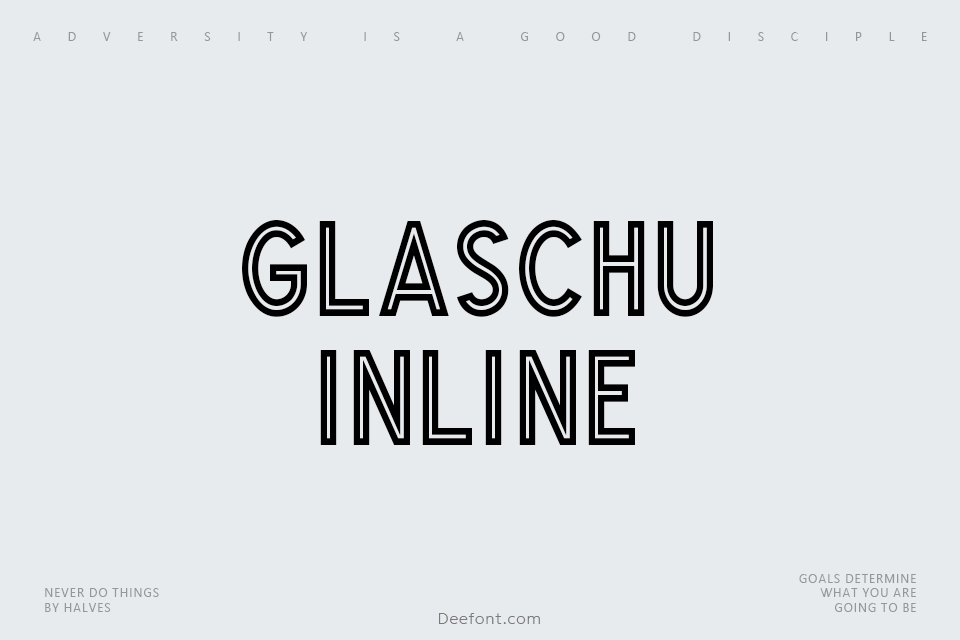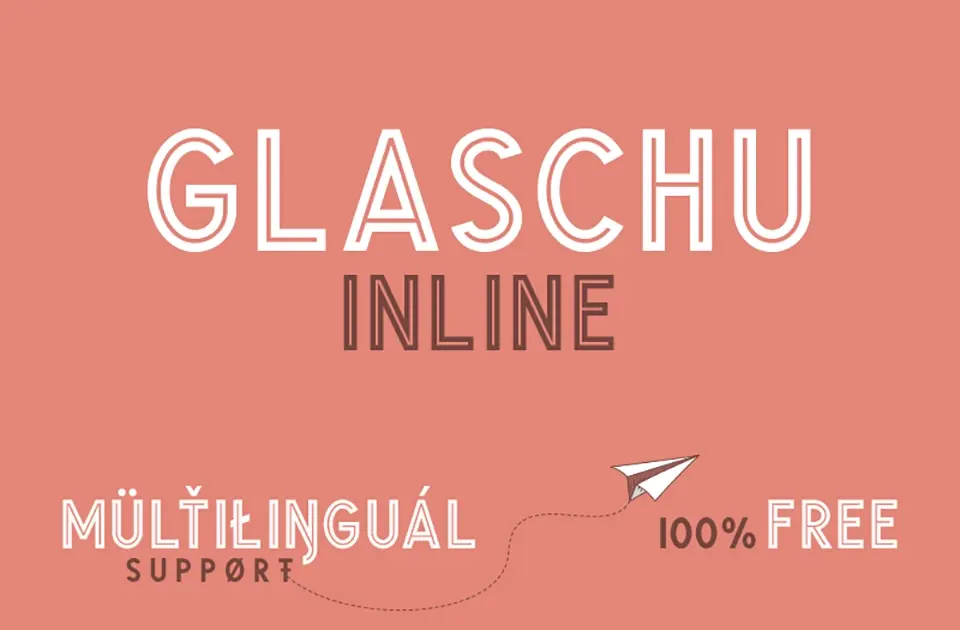
Glaschu Inline Font
Glaschu Inline is a bold, geometric sans-serif typeface featuring distinctive double-lined characters that create a strong, embossed appearance. Designed by Rae Arnott at Braw Type, this modern, all-caps font showcases clean lines and consistent weight, making it ideal for headlines and branding where a strong, impactful statement is desired. The outlined style combines confidence with contemporary design, perfect for logo design, display purposes, and creative typography projects. Available in multiple weights, Glaschu Inline’s minimalist aesthetic and geometric precision offer versatile applications for modern design needs.